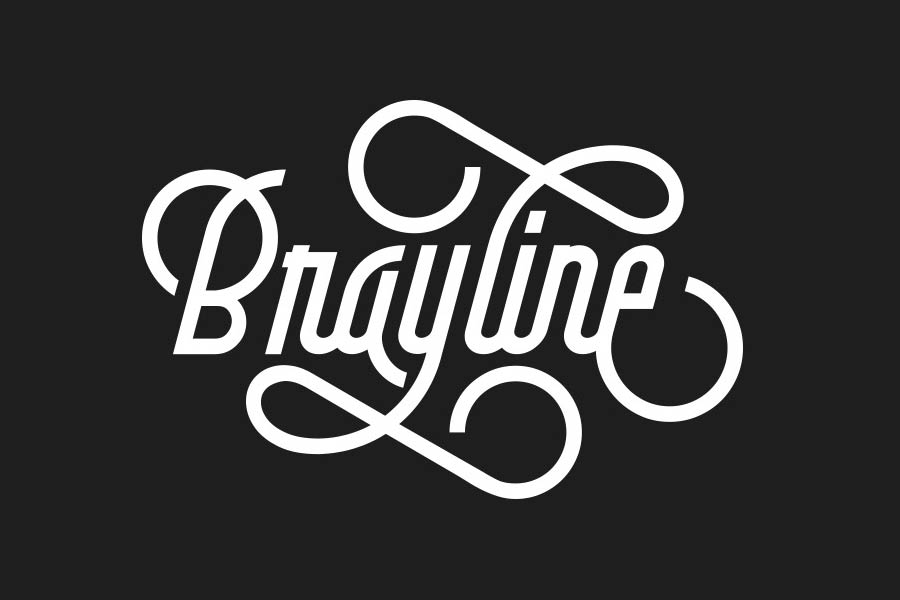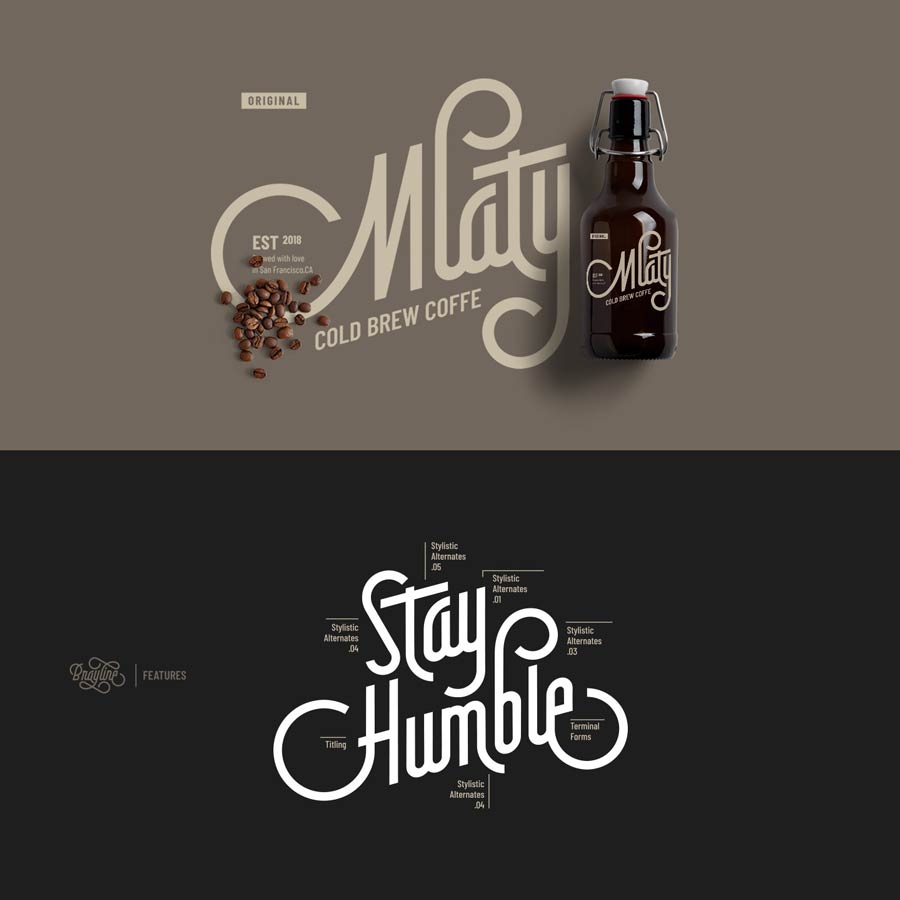
Brayline is a vintage monoline swashed script font inspired by Old Neon Signs. It comes with more than 400 glyphs, plus tonnes opentype alternates features for limitless typography varieties.
Brayline can be a great choice for signage, packaging, branding, posters and many more projects.